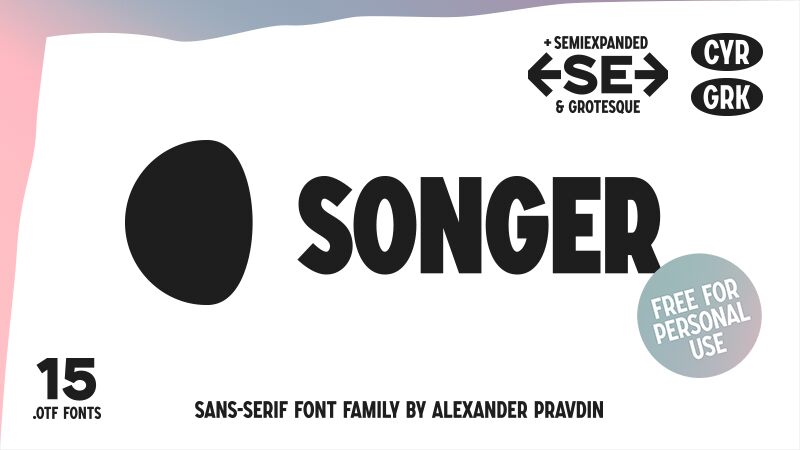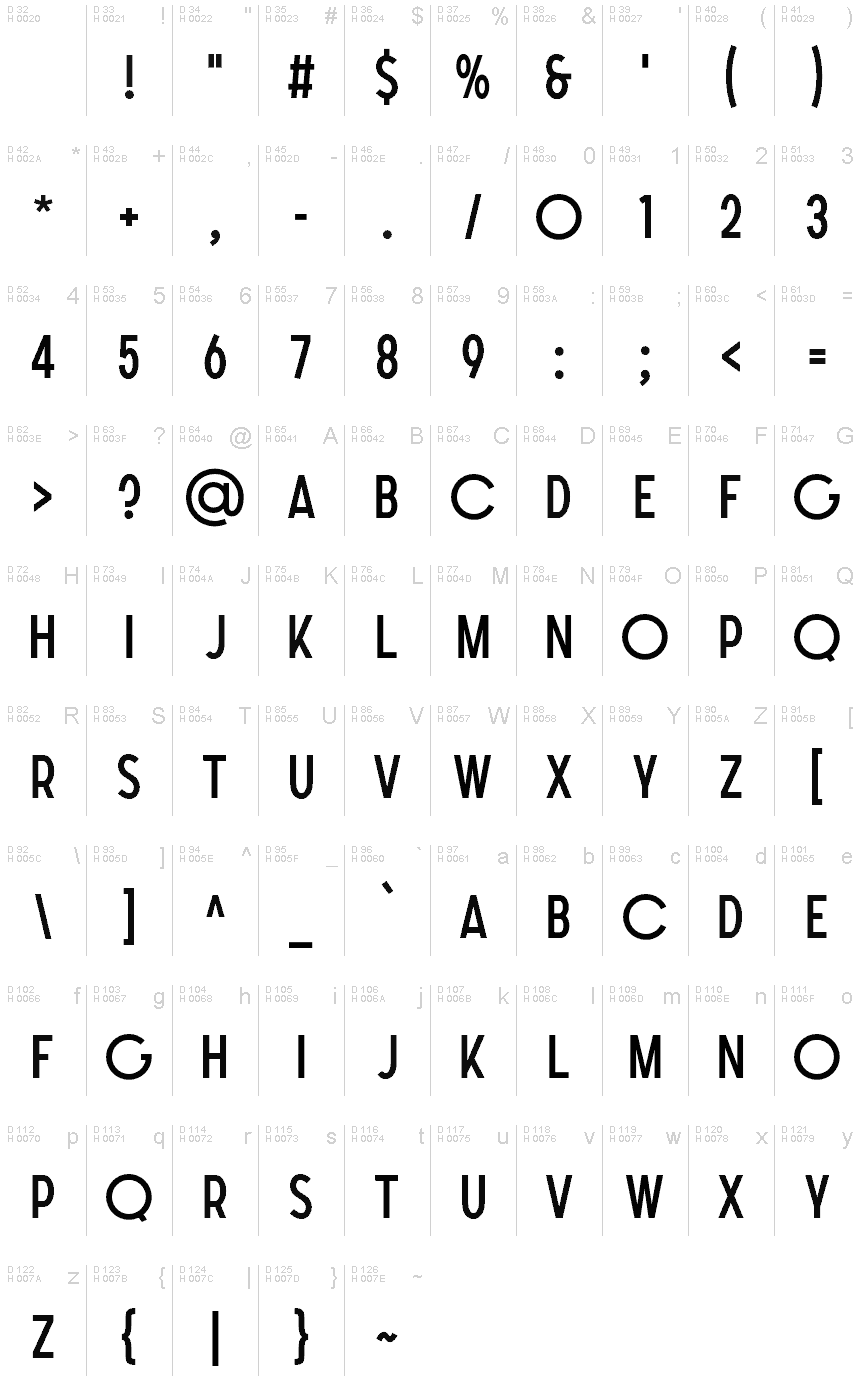
SONGER sans-serif font family supporting Greek & Cyrillic
OpenType Features:
- Stylistic sets
- Slashed zero
- Bulgarian localization
- Tabular symbols
Please use UPPER CASE for the best kerning result and don't forget to switch kerning to the optical when you use condensed and expanded letters in one text
SONGERGrotesque — Prezentace písma
SONGER Grotesque
Alexander Pravdin